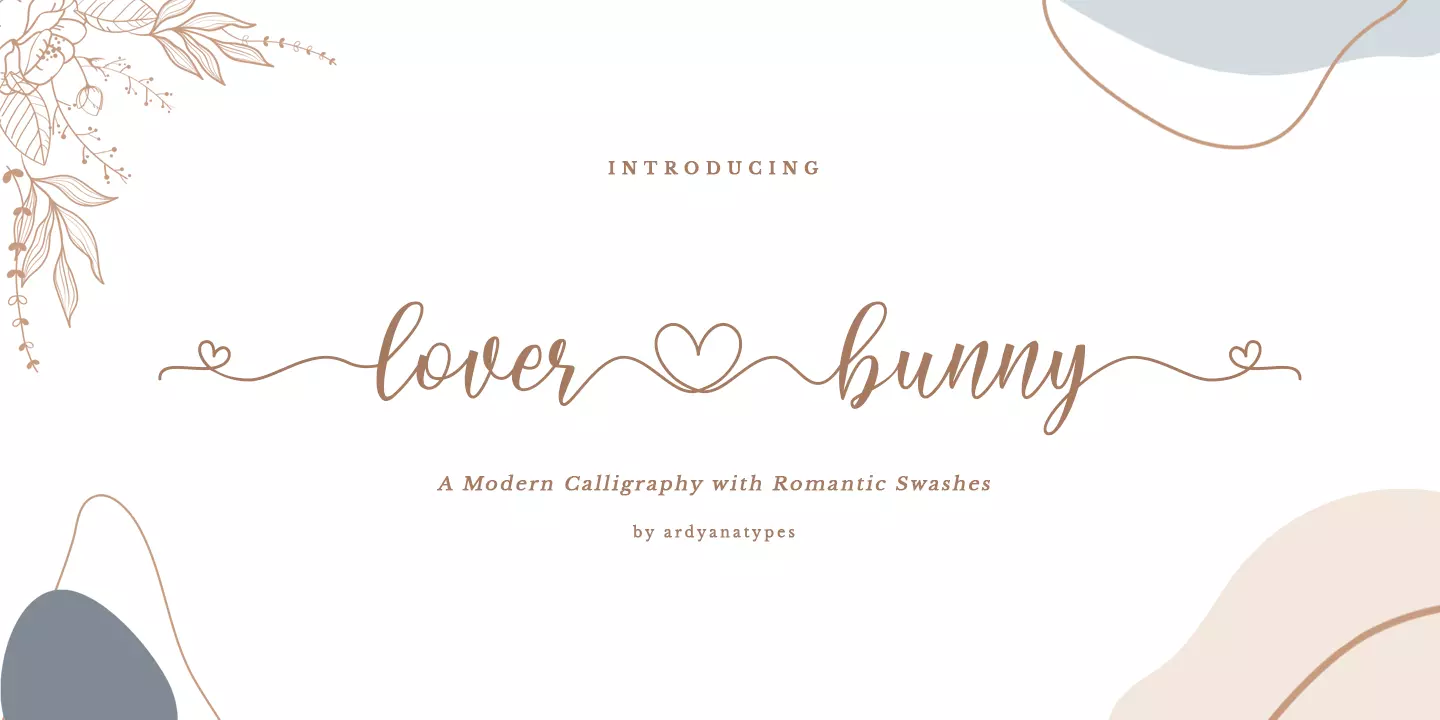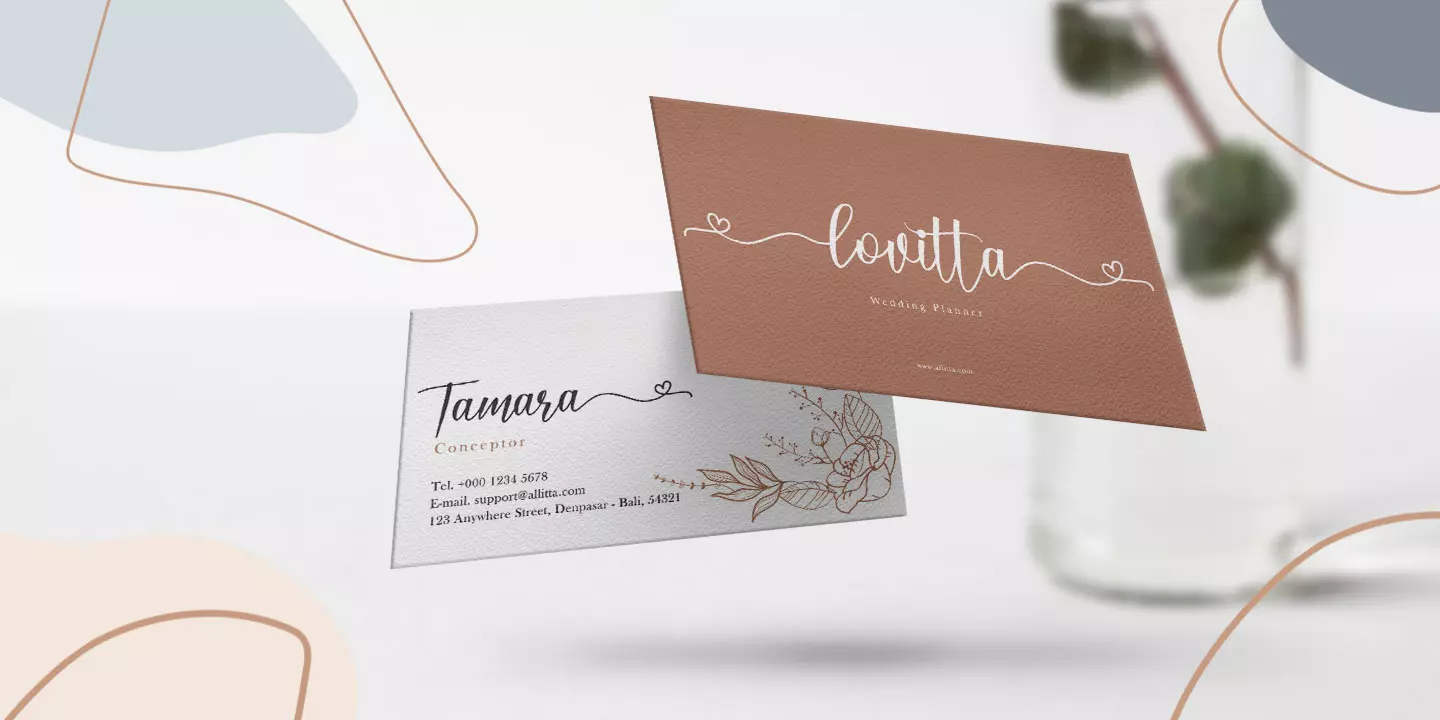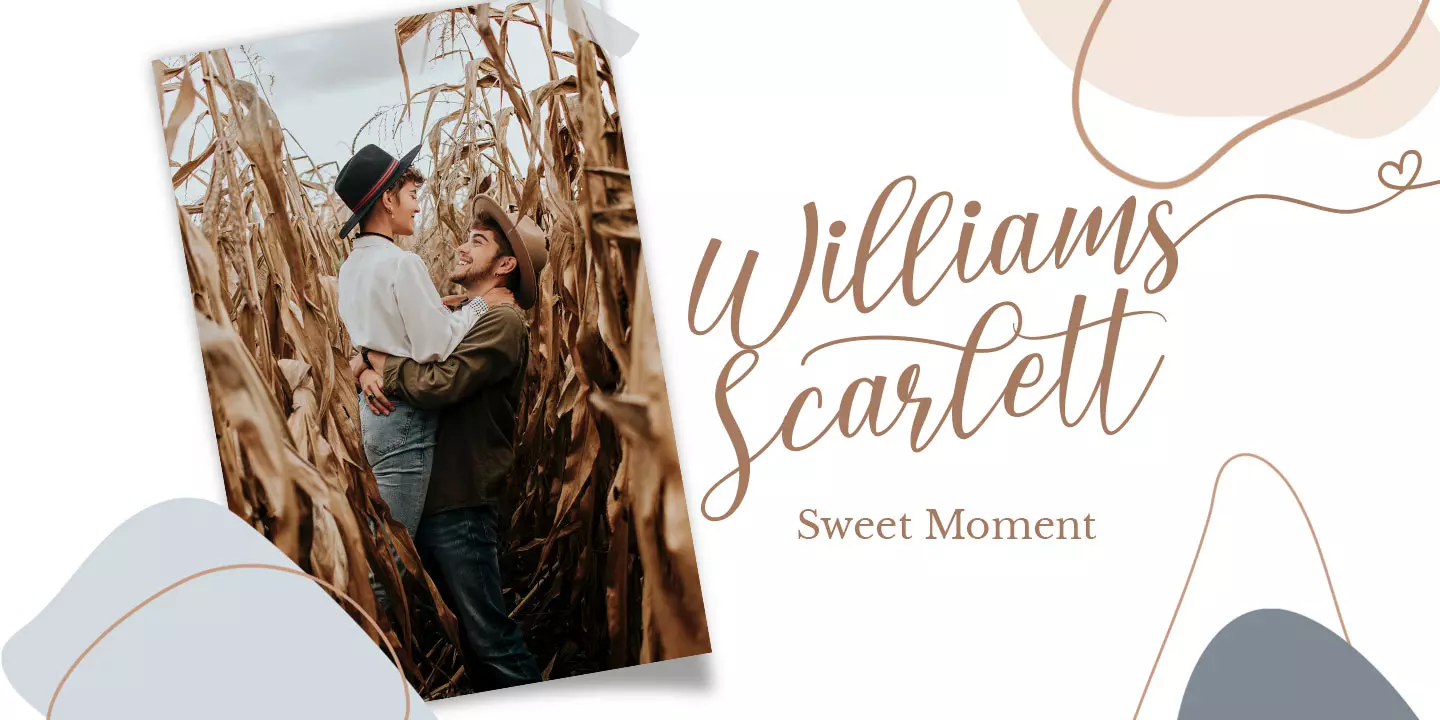
Lover Bunny
Lover Bunny is a font created with a special touch to give it a beautiful and attractive appearance. The modern type of calligraphy is also included in Lover Bunny, it is very suitable if applied to every design such as poster designs, signatures, logos, quotes, album covers, business cards, product designs, and many other design projects.